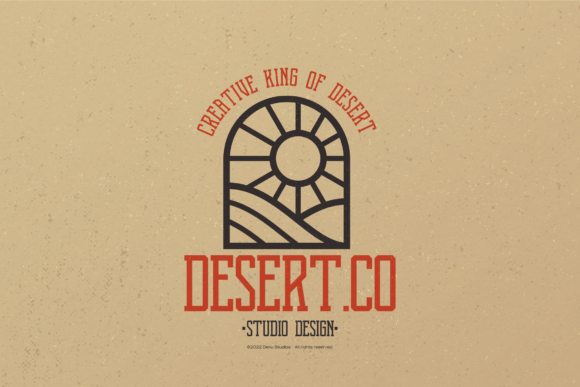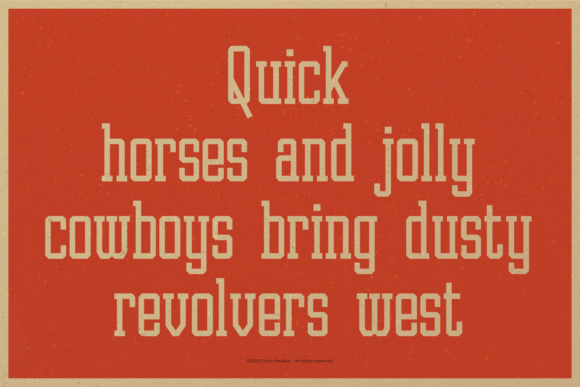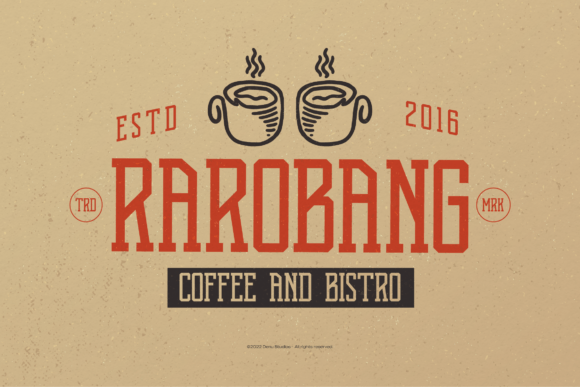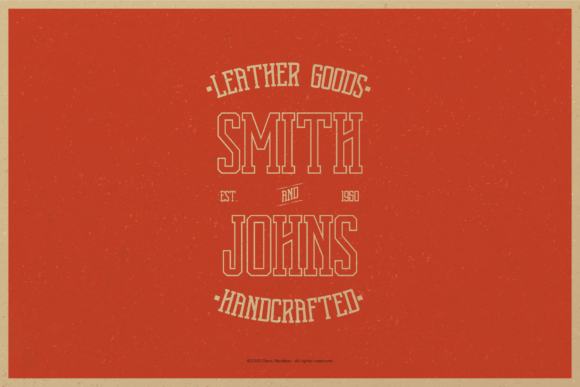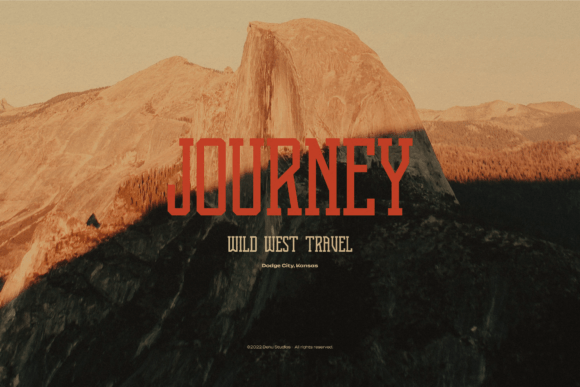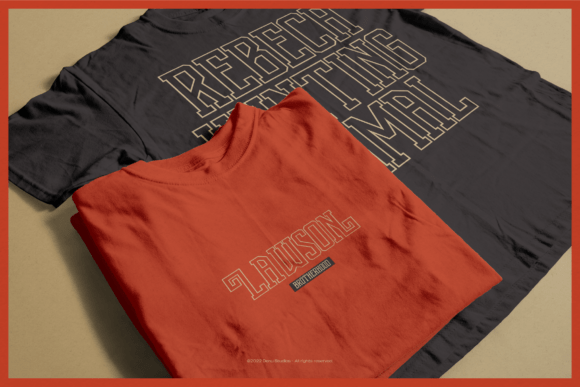
Introduction to Nopsan Font
Have you ever stared at a blank canvas, waiting for that perfect font to strike inspiration and bring your creative project to life? It’s a moment many designers know and love, but also dread. That’s why we’re excited to introduce you to Nopsan Font, a condensed font that’s sure to become your new go-to design resource.
Nopsan Font is more than just a font – it’s a versatile tool that can elevate any project from logos to homeware designs, product packaging, and even photography. With its sleek and modern design, this font is perfect for adding a touch of sophistication to your creative endeavors. And the best part? It’s available for free download, making it an accessible high-quality design resource for designers of all levels.
- Nopsan Font is a unique design resource ideal for creative projects that require a distinctive touch.
- The Nopsan Font features a transparent background, allowing for seamless integration into various design elements.
- Nopsan Font boasts a resolution of 300 DPI, ensuring crisp and clear text display in various sizes.
- With its unique character set and elegant design, Nopsan Font is perfect for designers seeking a stylish and sophisticated look for their creative project.
Honest Review: Nopsan Font
I recently came across the Nopsan Font, and I must say it’s a great addition to any designer’s toolkit. As a design enthusiast, I always look for high-quality fonts to elevate my creative projects.
Here are some of the things that work well with the Nopsan Font:
- ✨ Clean and modern design aesthetic that’s perfect for contemporary branding projects
- ✨ Highly legible, making it ideal for body text and paragraphs
- ⚠️ Limited font weights, which might not be suitable for projects requiring a wide range of font variations
- ⚠️ No support for transparent background, which could be a drawback for designers working with complex backgrounds
Overall, I’m impressed with the Nopsan Font. It’s a solid design resource that’s perfect for designers working on creative projects. While it may have its limitations, it’s definitely worth considering for your next design project.
Nopsan Font is a high-quality design resource perfect for your creative project. This free download offers a unique and stylish aesthetic that can elevate your work to the next level.
Tips for Getting the Most Out of Nopsan Font
To get the most out of Nopsan Font, experiment with different font sizes, colors, and transparency levels. You can also pair it with other design elements to create a unique and eye-catching look.
Nopsan Font is perfect for a variety of creative projects, including logos, brochures, business cards, and social media graphics. Its high-quality design and transparent background make it a great choice for any design task.